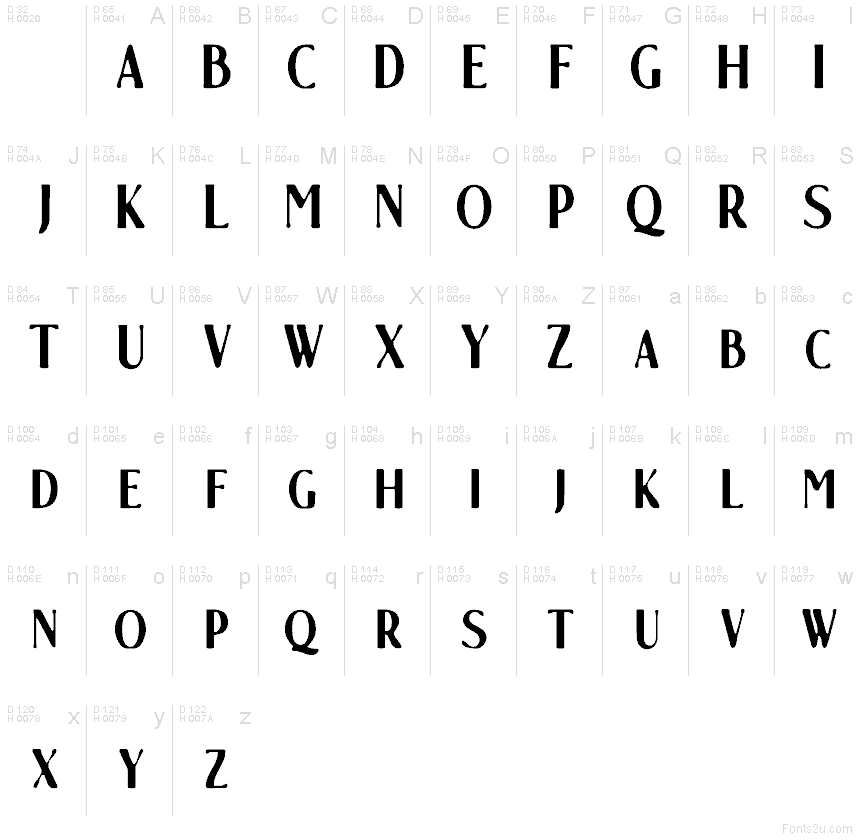
QualeyBlur-Regular Demo
Qualey Blur font by Craft Supply Co. is an elegant, vintage-inspired font with a refined aesthetic. This condensed serif free font features distinct character shapes and decorative elements, influenced heavily by the classic roots of serif designs.
A perfect fit for editorial design, books and magazines, titles and headlines, posters and pamphlets; it's also excellent for websites, watch or fashion branding, logos for food- or drink-related businesses like cafes or restaurants.